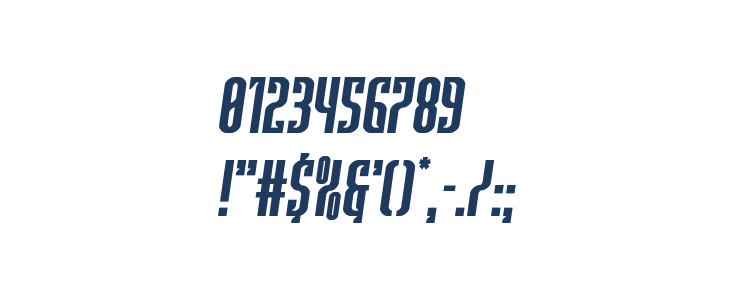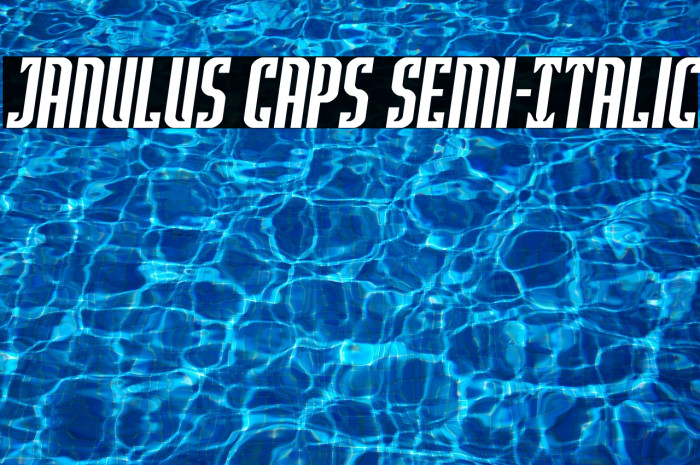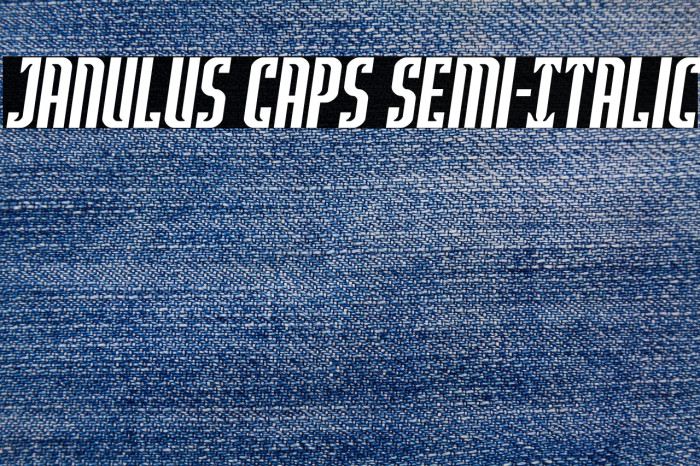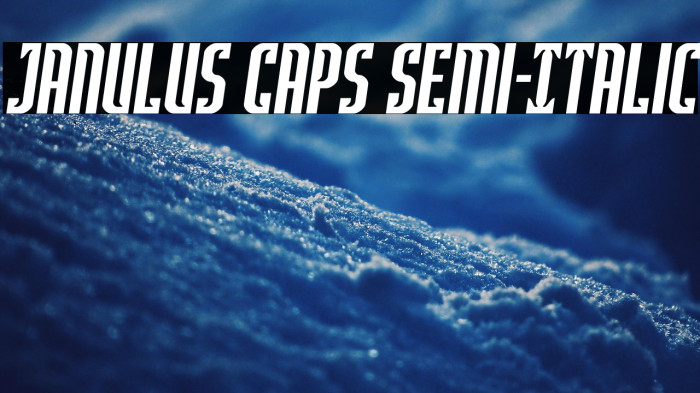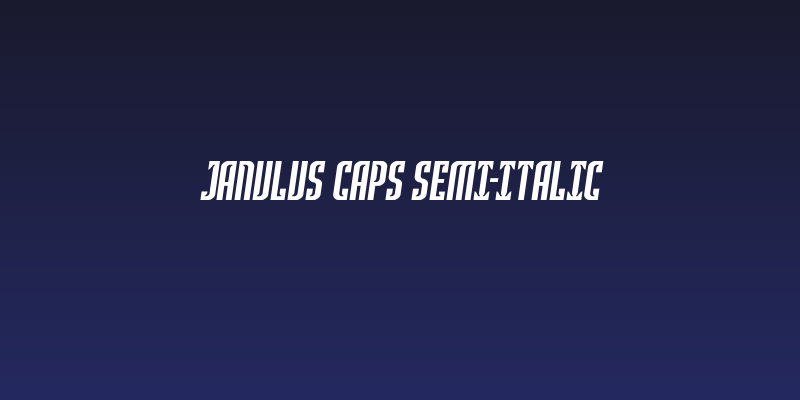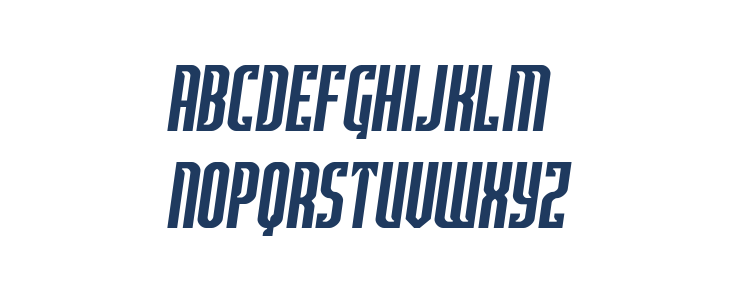
Janulus Caps Semi-Italic Font
Janulus Caps Semi-Italic Description
This font features a bold, semi-italic style with a strong presence. The characters are tall and narrow, giving a condensed appearance. The strokes are consistent in thickness, providing a uniform look across all letters and numbers. The angled design adds a dynamic and modern feel, making it suitable for attention-grabbing headlines. The uppercase letters have a distinctive flair, with sharp edges and slight curves that enhance their visual impact. The numerals are equally bold, maintaining the same stylistic elements as the letters. Special characters are designed to match the overall aesthetic, ensuring a cohesive look throughout.
| Proposed Projects | Ideal for branding, posters, and headlines where a strong, modern impression is desired. |